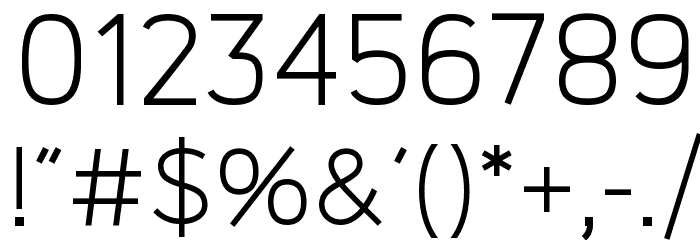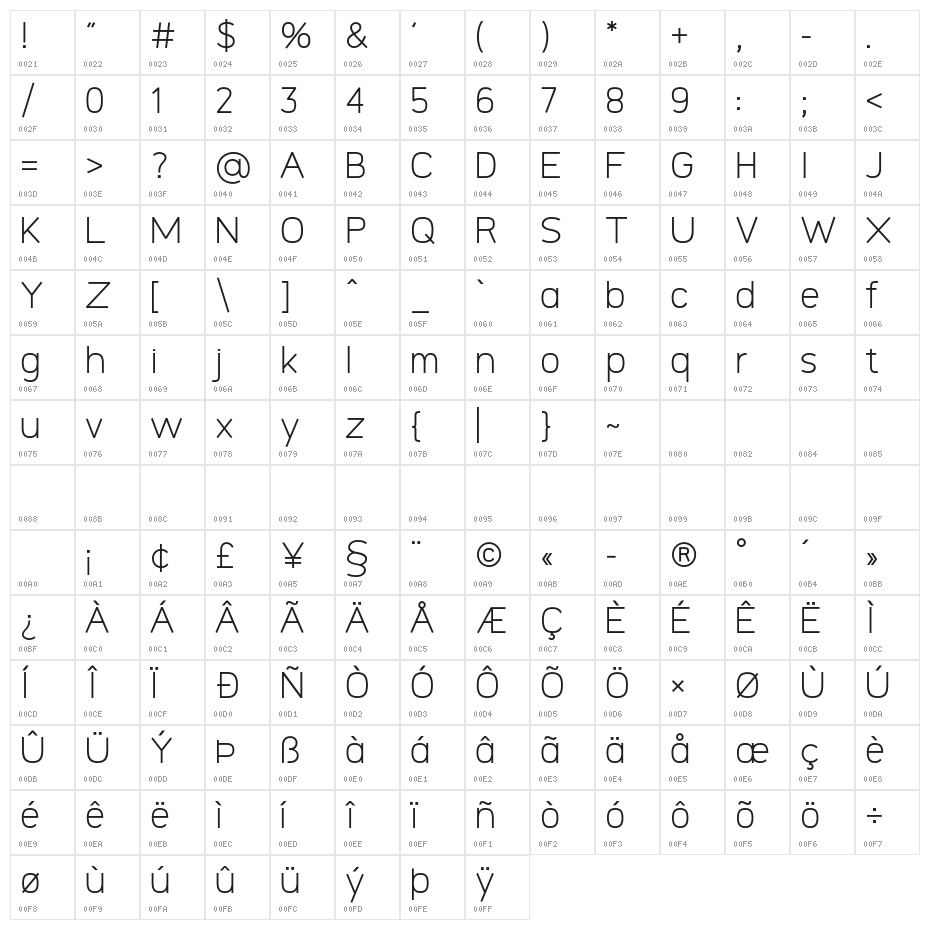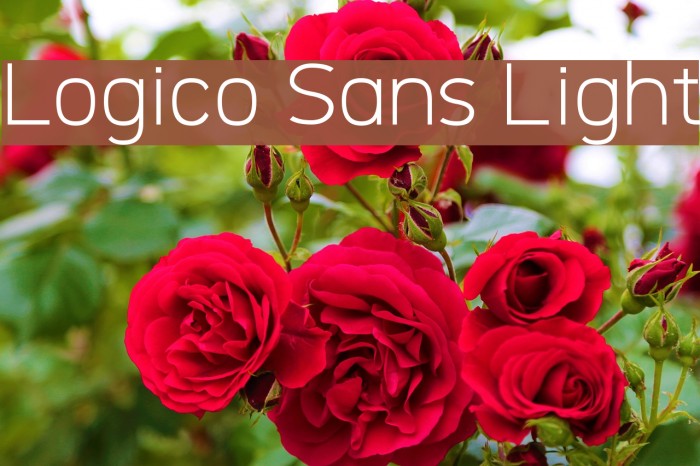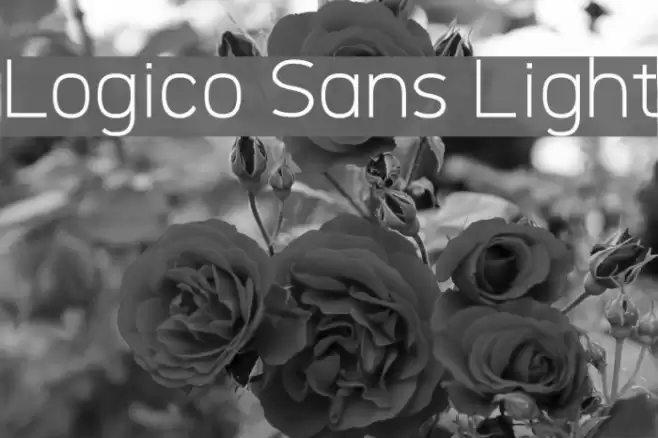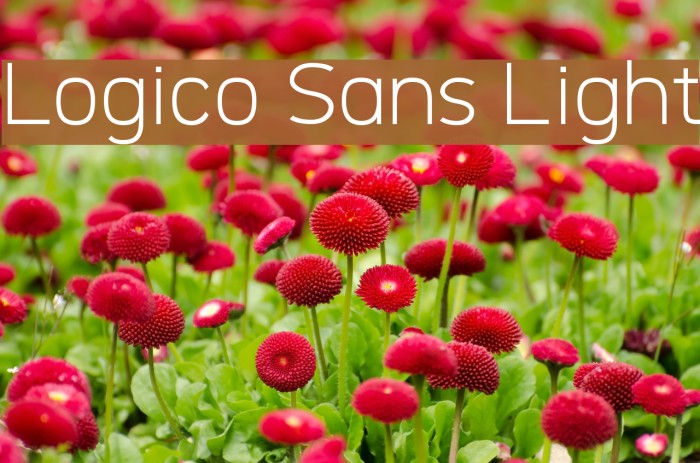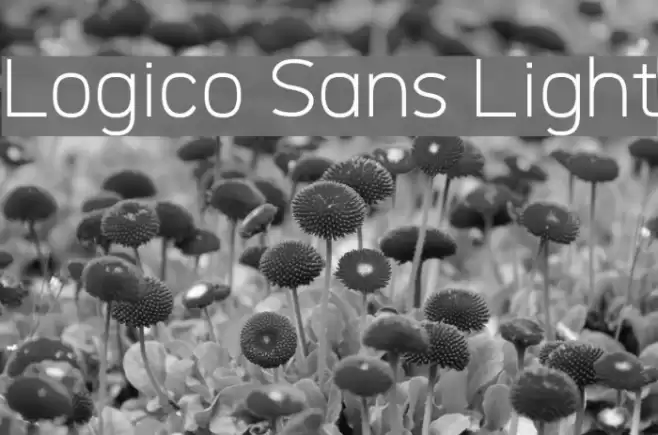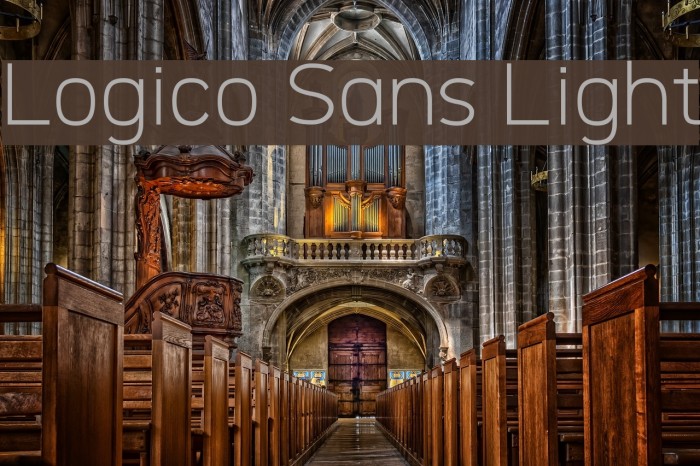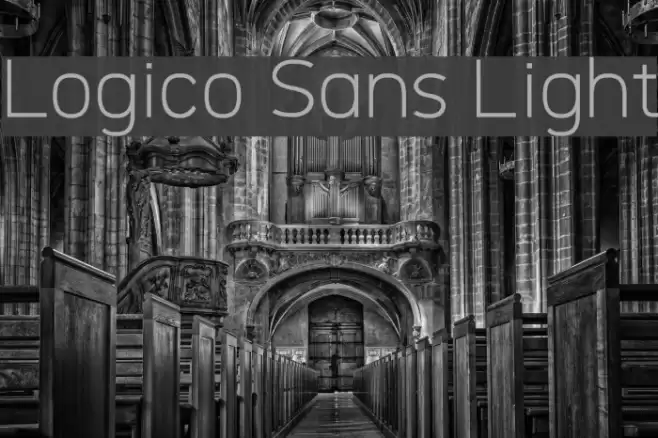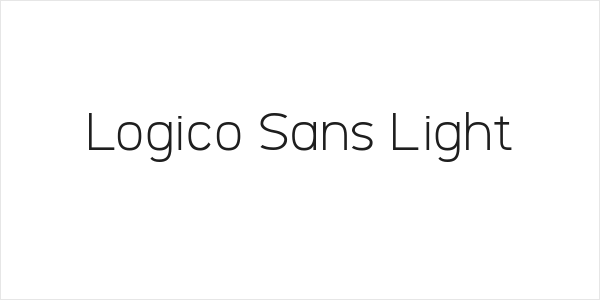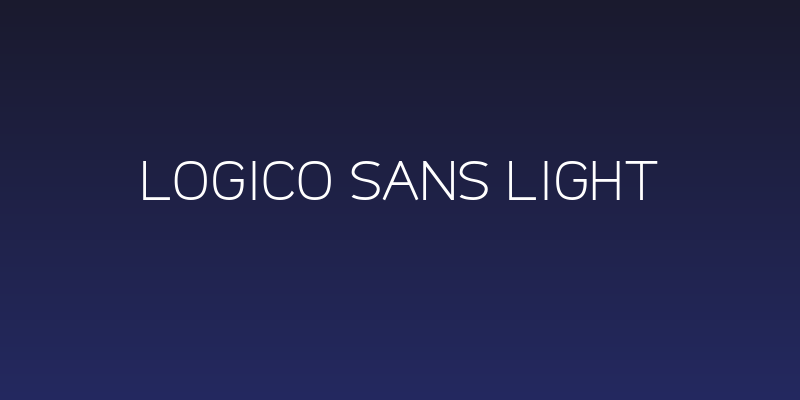
Logico Sans Light Font
Logico Sans Light Description
This font features a clean and modern sans-serif design with a light weight, making it ideal for minimalist and contemporary projects. The characters are evenly spaced with a normal width, providing excellent readability. The strokes are consistent in thickness, offering a low contrast that enhances its sleek and professional appearance. The font's simplicity and clarity make it suitable for a wide range of applications, from digital interfaces to print media. Its geometric shapes and balanced proportions contribute to a harmonious and unobtrusive aesthetic.
Use CaseHeadlines, Body text, Logos
Proposed ProjectsIdeal for digital interfaces, corporate branding, minimalist designs, and editorial layouts.